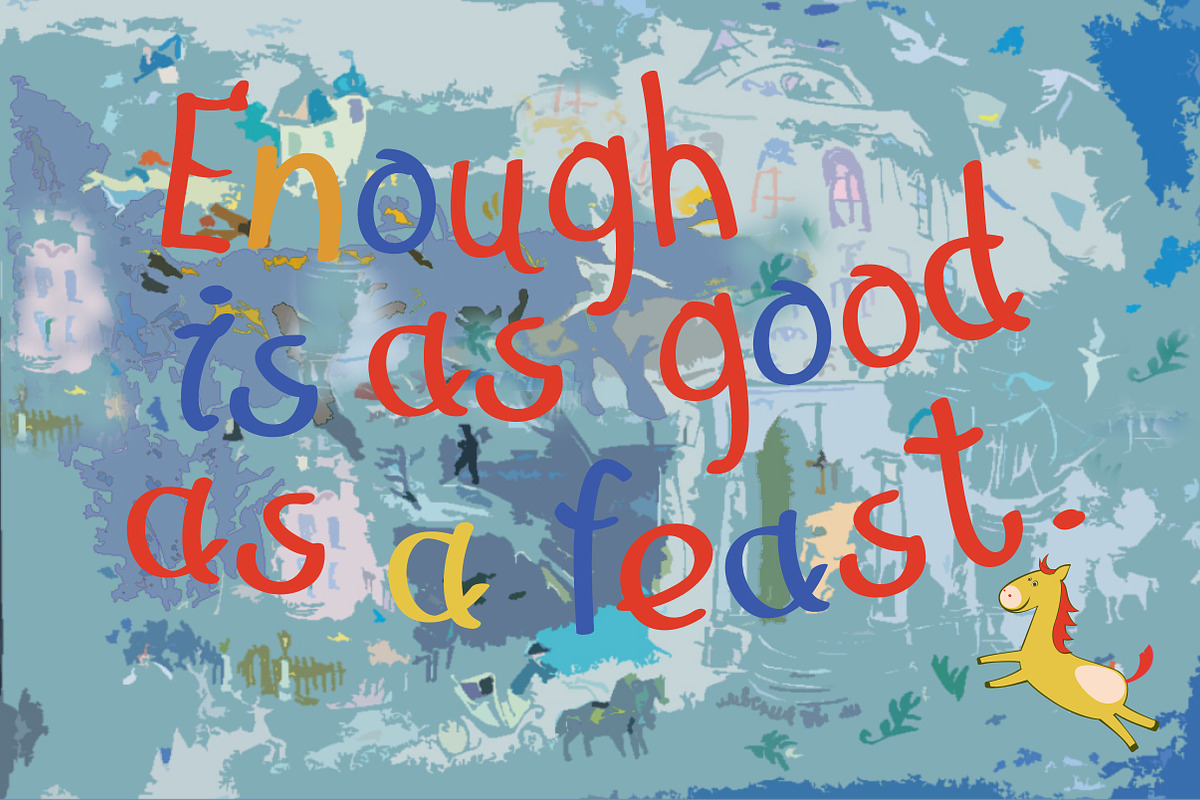
Hilarious font
Hilarious font by BondarenkoNat is a font selected for branding, posters, packaging, typography.
Why Hilarious font is worth a look
Hilarious font by BondarenkoNat fits naturally into Branding, posters, packaging, typography.